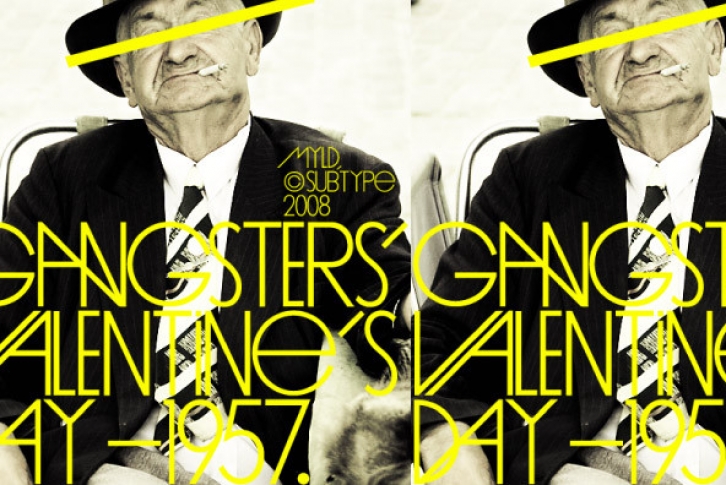
Lace a page with the intertangled angles. The Swedish SubType neo vangaurd rides the forefront of throwbacks, bringing to you, through us, Myld, the evil twin of sister Wyld. Instant download in the OpenType format.